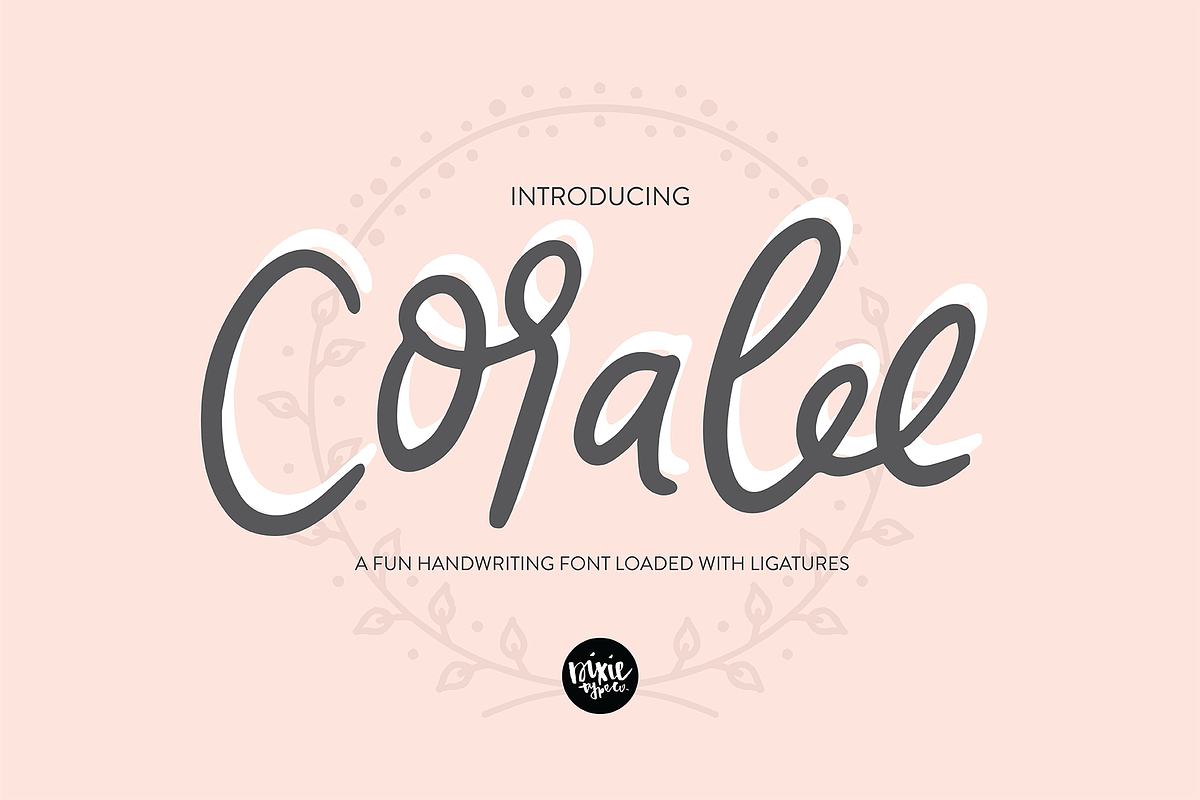
CORALEE a Bouncy Handwriting Script
Coralee (DTC Coralee)
{ A typographic font hand-lettered with love by Dixie Type Co. }
Coralee is a bouncy handwriting script font with tons of ligatures.